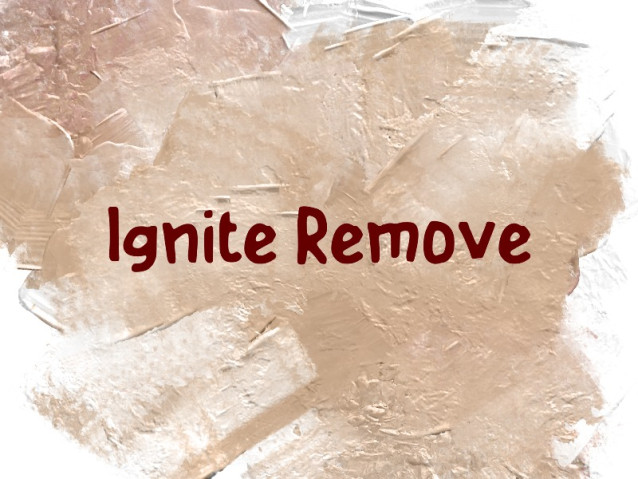
Ignite Remove Font
Ignite Remove Font is a simple and modern display font suitable for quotes, logos, headings, titles, and many more. Use it on any of your creative projects, and your designs will become outstanding!